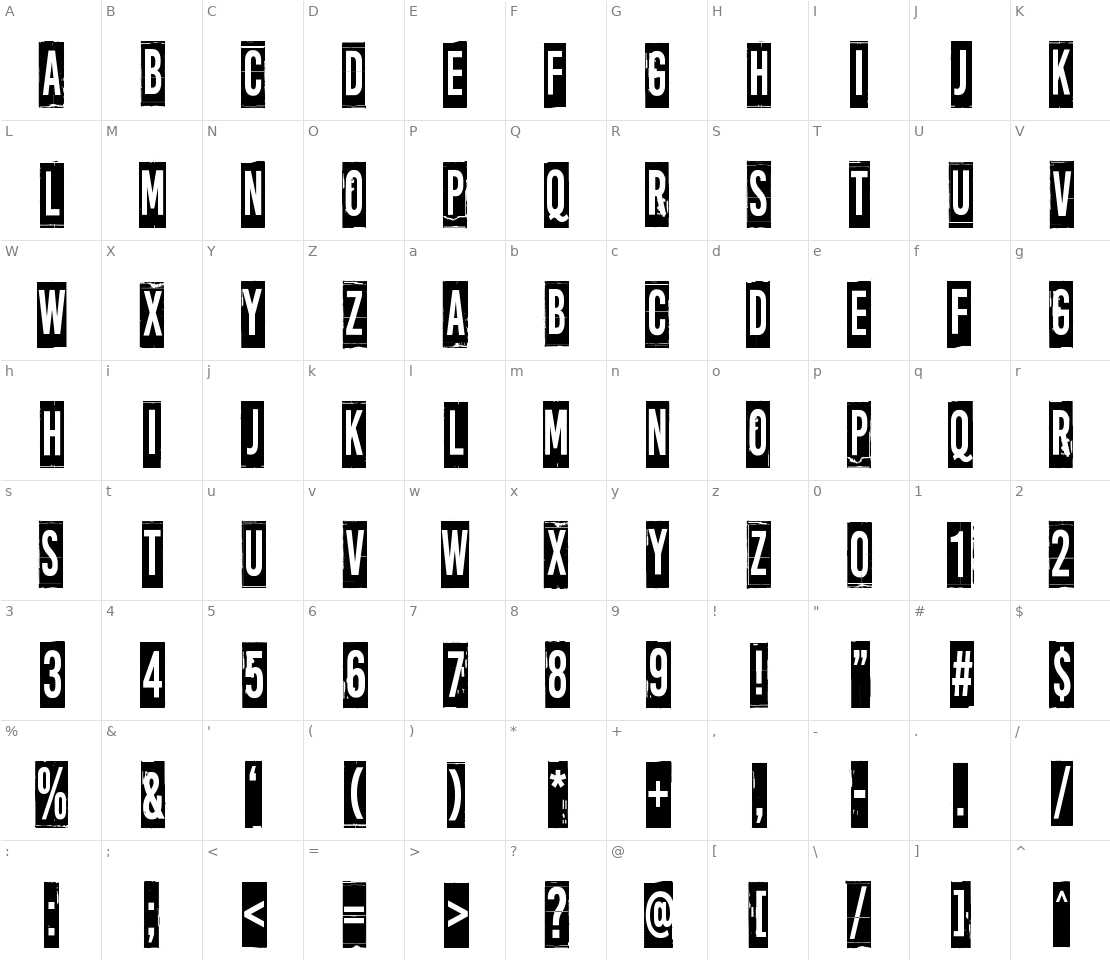
More news from nowhere
More news from nowhere is a bold, condensed stencil face from junkohanhero with an inverted, high-contrast look that gives it the feel of ink pressed hard through a cut template. The uppercase letterforms are blocky and tightly packed, built for posters, protest graphics, and headlines where you want something that reads as urgent and unpolished. There's a raw, utilitarian quality here that feels more street-level than studio.